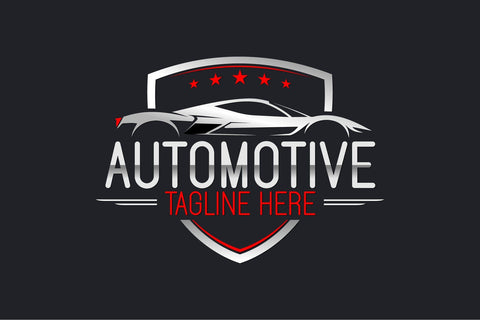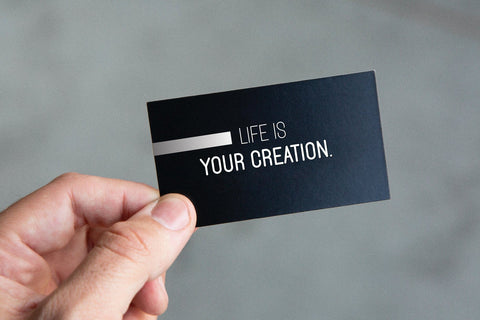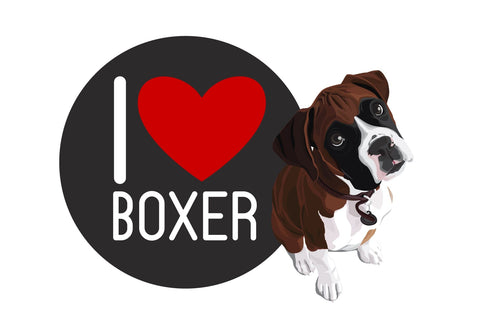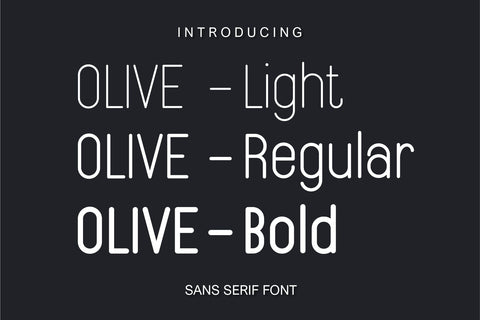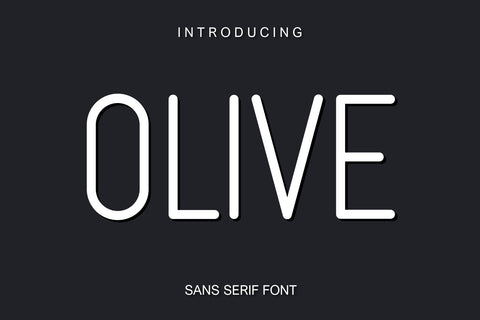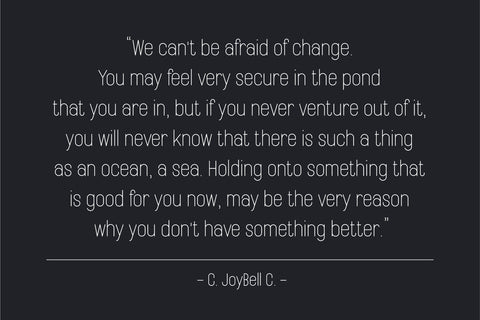
Olive Fonts
Olive Font is a clean and minimal sans serif font with There are 3 styles to choose from Olive Light, Olive Regular, and Olive Bold. It can easily be matched to an incredibly large set of projects, so add it to your creative ideas and notice how it makes them stand out!